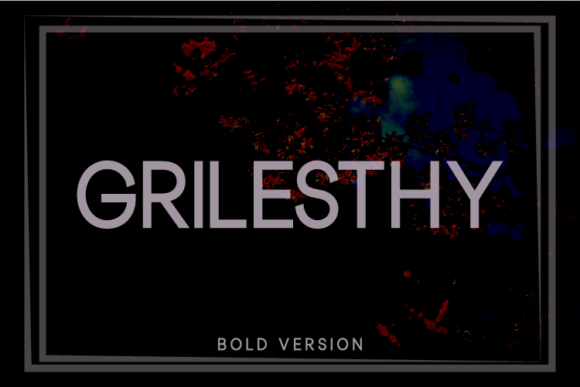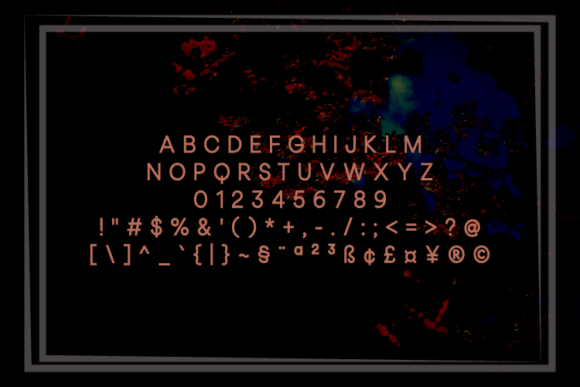
Unlock the Power of Grilesthy Bold Font
Remember the thrill of finally finding the perfect font to elevate your design? You know, that moment when everything clicks into place, and your creative vision starts to take shape? For designers, that ‘aha’ moment is often the result of a well-chosen font. And if you’re looking to add a modern touch to your next project, we’ve got just the thing: Grilesthy Bold Font.
This fantastic sans serif font is designed to make a statement, with its friendly feel and versatility making it perfect for headlines, blocks of text, and everything in between. With 10 different weights to choose from, you can tailor Grilesthy Bold Font to suit your design needs, from thin to extra black versions. Whether you’re a seasoned pro or just starting out, Grilesthy Bold Font is a valuable addition to any designer’s toolkit.
- Font Family: Grilesthy Bold
- Unique Characteristic: Distinctive, modern design with a bold and sleek aesthetic, ideal for headings and titles
- Language Support: Supports a wide range of languages, including Latin, Cyrillic, and Greek alphabets
Review: Grilesthy Bold Font
When I first stumbled upon Grilesthy Bold Font, I was immediately drawn to its unique, playful vibe ✨. The font’s bold and energetic design is perfect for capturing attention and adding a touch of whimsy to any project. The open, rounded shapes give it a friendly and approachable feel, making it ideal for use in social media graphics, advertising, and other applications where you want to convey a sense of fun and excitement.
- The font’s versatility and adaptability to different screen resolutions and devices make it a great choice for digital projects ✨
- Its high contrast and clear letterforms ensure readability, even at small font sizes ✨
However, I did encounter a few limitations ⚠️. The font’s boldness can sometimes make it feel a bit overwhelming, especially when used in large quantities or at small font sizes. Additionally, some users may find the font’s rounded shapes and irregularities to be distracting or difficult to read in certain contexts.
Overall, I’d say Grilesthy Bold Font is a solid choice for designers looking to add some personality and flair to their projects ✨. While it may not be the best fit for every application, its unique design and versatility make it a great option for designers who want to stand out from the crowd.
Grilesthy Bold Font is ideal for:
- Emphasizing important text
- Creating visually appealing designs